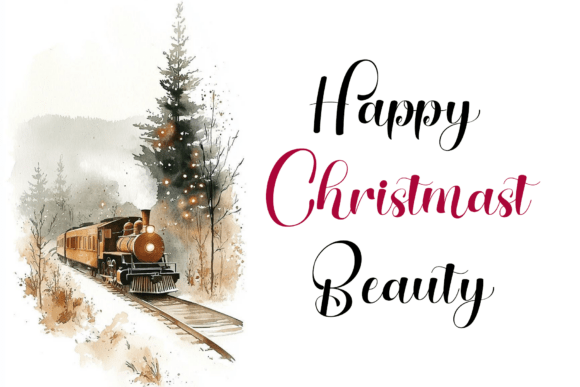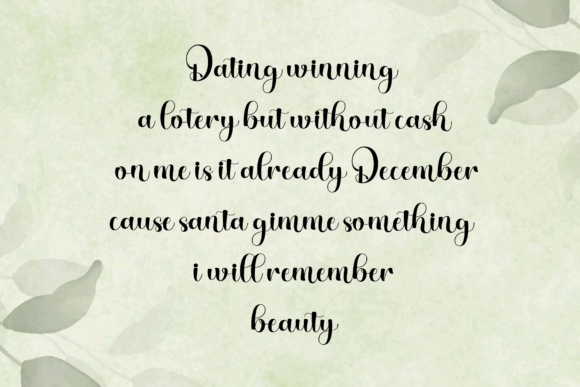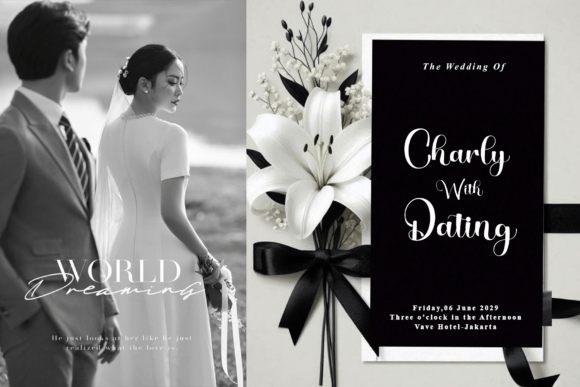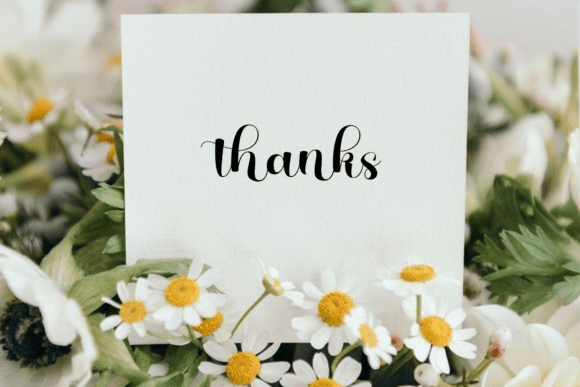
Bimble Date Font: Elevate Your Designs with Elegance and Sophistication
In the world of typography, a well-crafted font can make all the difference in elevating your designs from ordinary to extraordinary. Introducing Bimble Date, a stunning handwritten script font that embodies the perfect blend of modernity, elegance, and sophistication. With its smooth, fluid strokes and lovely ornamental curves, Bimble Date is sure to captivate your audience and leave a lasting impression.
A Feminine, Professional, and Romantic Touch
Bimble Date boasts a distinctly feminine charm, making it an ideal choice for designers and crafters looking to add a touch of elegance to their projects. The font’s consistent weight and clean connections ensure excellent legibility, while its stylized curves and ornamental details evoke a sense of romance and sophistication. Whether you’re working on custom sublimation designs, boutique branding, or personalized gifts, Bimble Date is the perfect companion to help you create beautiful, high-end designs.
One of the standout features of Bimble Date is its versatility. This font is perfect for a wide range of applications, including:
- Custom sublimation designs: Add a touch of elegance to your sublimation projects, such as custom mugs, phone cases, and apparel.
- Boutique branding: Elevate your brand’s visual identity with a sophisticated and stylish font that exudes luxury and refinement.
- Personalized gifts: Create beautiful, one-of-a-kind gifts, such as customized stationery, invitations, and gift tags.
- Custom stationery: Add a touch of personality to your stationery, including journals, planners, and greeting cards.
Why Choose Bimble Date?
So, what sets Bimble Date apart from other fonts? Here are just a few reasons why designers and crafters are falling in love with this beautiful script font:
- Smooth, fluid strokes: Bimble Date features smooth, flowing strokes that give it a natural, handwritten feel.
- Lovely ornamental curves: The font’s ornamental curves and stylized details add a touch of elegance and sophistication.
- Excellent legibility: The consistent weight and clean connections ensure that Bimble Date is easy to read, even at smaller sizes.
- Feminine, professional, and romantic: Bimble Date embodies a unique blend of femininity, professionalism, and romance, making it perfect for a wide range of design applications.
Tips for Using Bimble Date
To get the most out of Bimble Date, here are a few tips to keep in mind:
- Pair with contrasting fonts: Combine Bimble Date with contrasting fonts to create visual interest and add depth to your designs.
- Experiment with colors: Bimble Date looks stunning in a range of colors, from soft pastels to rich jewel tones. Experiment with different colors to find the perfect fit for your design.
- Pay attention to spacing: Make sure to adjust the spacing between letters and words to ensure optimal legibility and visual flow.
In conclusion, Bimble Date is a truly exceptional script font that offers a unique blend of elegance, sophistication, and versatility. Whether you’re a designer, crafter, or DIY enthusiast, this beautiful font is sure to become a go-to in your toolkit. With its smooth, fluid strokes, lovely ornamental curves, and excellent legibility, Bimble Date is the perfect choice for anyone looking to elevate their designs and create something truly special.